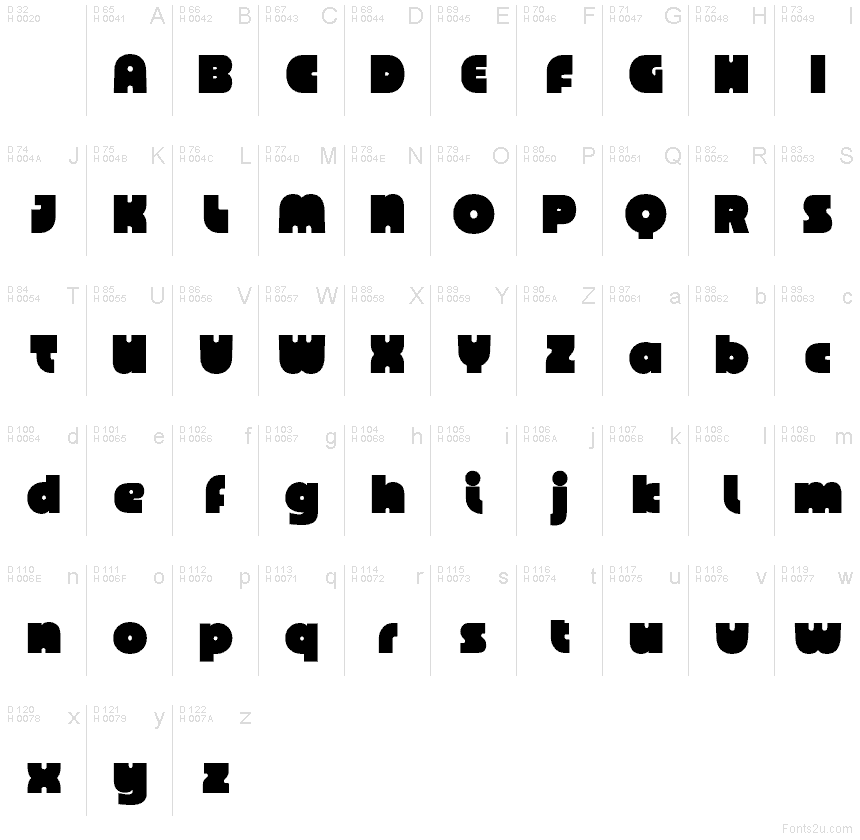
CS Marlow Regular Demo
CS Marlow font by Craft Supply Co. is a free groovy display font. It leans into plump, pillowy curves and near-circular bowls, with tight spacing that packs a lot of rhythm into each word. The rounded terminals feel soft to the touch, while the tiny, punchy counters add a playful spark—like bubble letters refined for modern branding.
Using CS Marlow, headlines snap into focus and keep their bounce, making it a natural fit for posters, festival branding, packaging, album covers, social promos, stickers, and café menus. This free font shines at large sizes where its chunky silhouette can breathe. Pair it with a light geometric sans for body copy, or track it slightly open to accentuate those juicy curves.